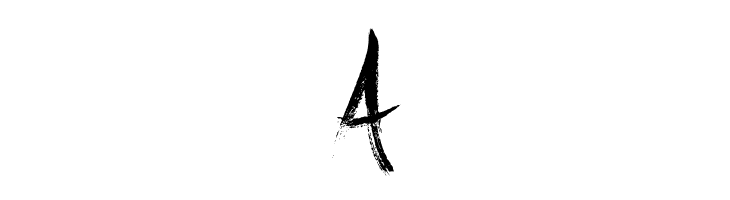
A playful, tilted font with a hand-drawn, whimsical style.
A playful, handwritten font with uneven strokes and a whimsical style.
A cursive, elegant script font with flowing loops and swashes.
A playful, hand-drawn font with bold, rounded characters and a whimsical style.
A playful, handwritten font with rounded edges and a casual, friendly style.
A playful, rounded font with a whimsical, hand-drawn style.
A playful and elegant handwritten font with fluid, cursive letterforms.
A modern, geometric font with a futuristic and sleek design.
A playful, bold font with chunky, hand-drawn letters and high contrast.
A playful, stencil-like font with bold, angular lines and cut-out sections.
A bold, playful font with a 3D shadow effect and cartoonish style.
A playful, bold font with circular shapes and dot accents.
A bold, playful handwritten font with thick strokes and rounded edges.
A playful and elegant script font with flowing cursive letters.
A graceful script font with flowing, cursive strokes and elegant loops.
A playful, handwritten font with smooth, rounded edges and a casual flow.
A playful and elegant script font with smooth, flowing curves.
A charming and elegant script font with playful, whimsical curves.
A flowing, cursive script font with elegant, interconnected letters.
A bold, dynamic brush script font with energetic strokes and expressive flair.
A bold, playful font with exaggerated curves and dynamic styling.
A bold, three-dimensional font with a retro, blocky style and shadow effects.
A bold, three-dimensional font with dynamic shadow effects.
A bold, graffiti-inspired font with a playful, hand-drawn style.
A classic, elegant script font with flowing, connected letters and bold strokes.
A playful, handwritten-style font with bold, rounded letterforms.
A bold, italicized font with a dynamic and energetic style.
A dynamic, playful handwritten font with smooth, slanted letterforms.
A bold, expressive brush-style font with dynamic, hand-painted strokes.
( Misti's Fonts - mistifonts.com/ )
A bold, cursive font with elegant curves and expressive flourishes.
( Fonts by Misti's Fonts - Personal-use only. For commercial use please contact owner. )
A bold, elegant script font with flowing curves and high contrast.
A bold, expressive script font with elegant curves and fluid connections.
A lively handwritten font with fluid strokes and a casual style.